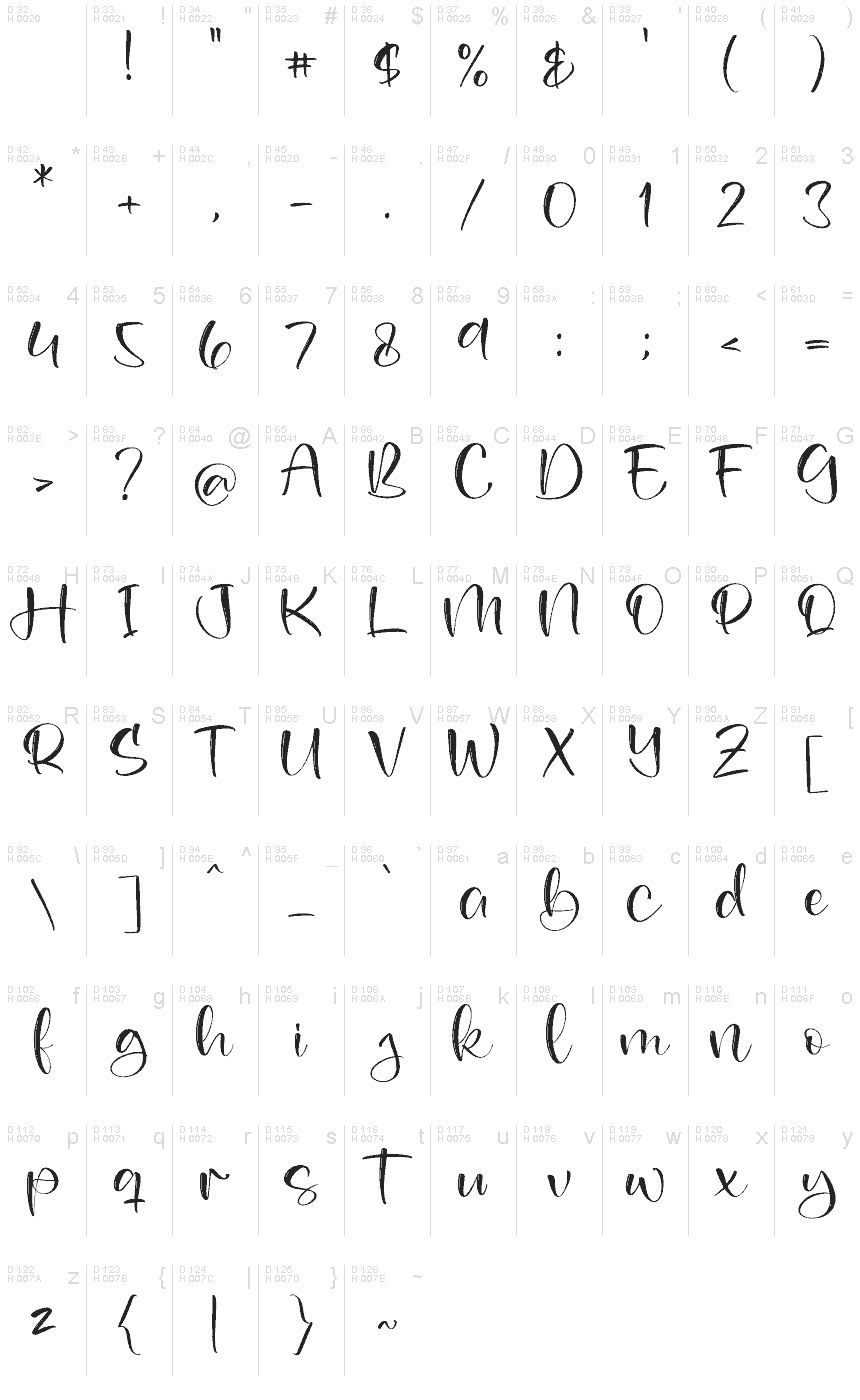
Gelisha Rocela
Gelisha Rocela font, created by Perspectype Studio, is a brush script with the elegance and sophistication of modern calligraphy. The exquisite typeface styles its unique rounded characters with an expressive artistic flair. It has beautiful handwriting elements which makes it appear like a font that was truly written using a special brush pen.